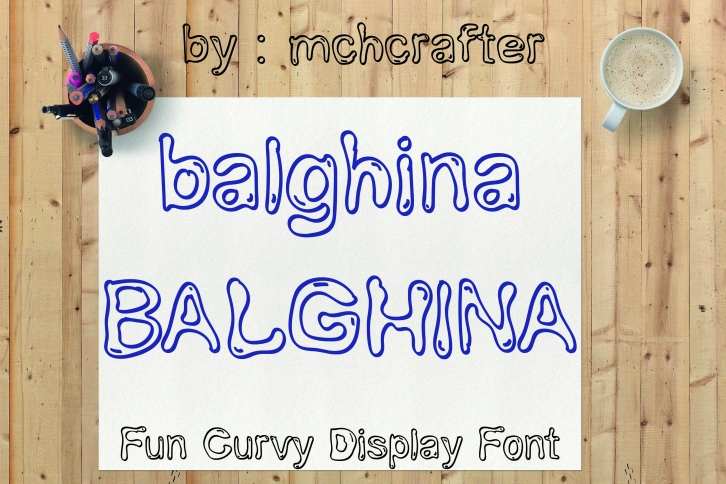
Balghina is a fun, playful and interesting display font. Whether you’re using it for crafts, digital design, presentations, or making greeting cards, this font has the potential to become your favorite go-to font, no matter the occasion!